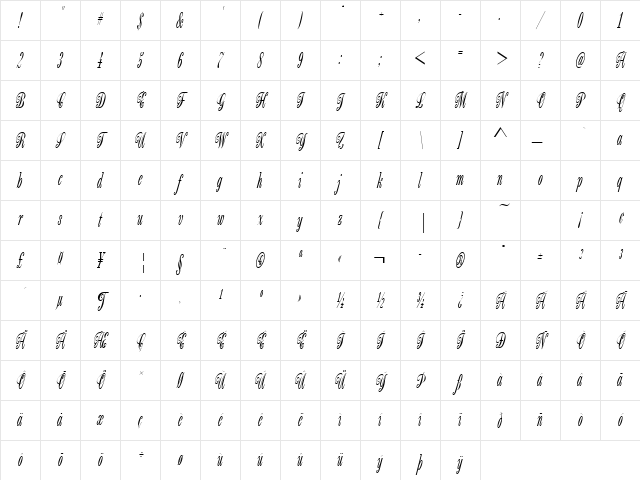
URWBordaScrD Regular
Design Context for URWBordaScrD
URWBordaScrD is a composed and adaptable typeface that performs quietly and consistently across a wide range of design contexts.
Pro Tip: Use URWBordaScrD in both headline and body roles to test its range before committing to a single application.